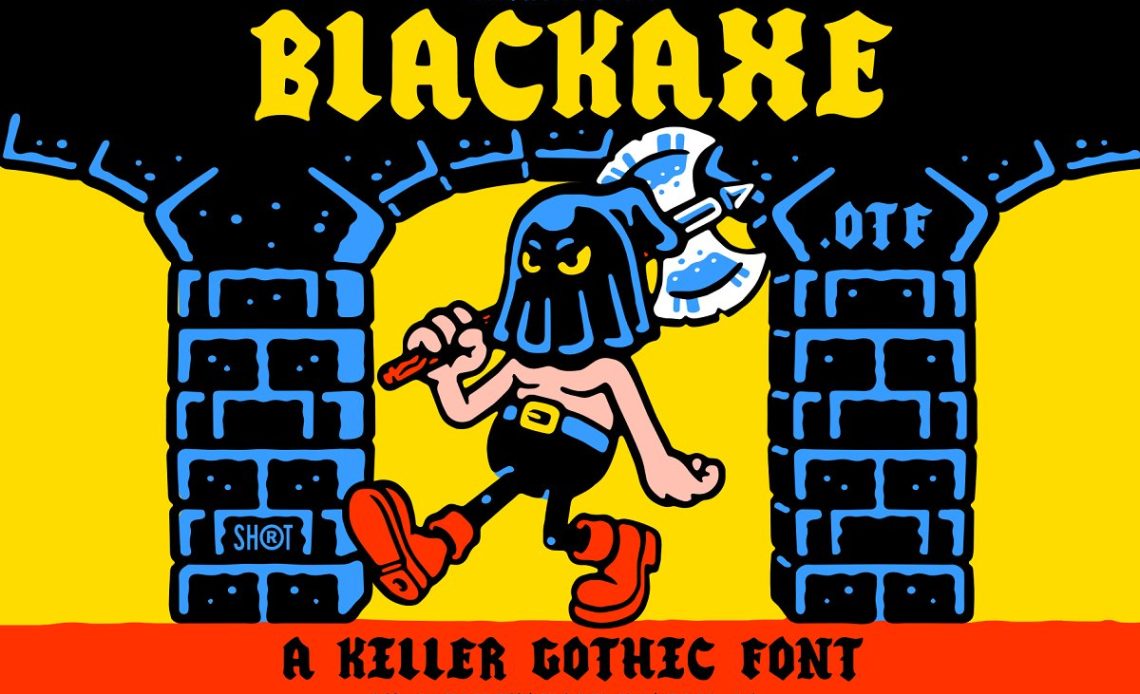
Introducing BLACKAXE FONT: The Ultimate Typeface for Killer Designs!
Are you tired of using the same old boring fonts that fail to make an impact? Look no further! BLACKAXE FONT is here to revolutionize your designs and take them to the next level. Created by the exceptionally talented Davy le Chevance, this cool blackletter font with a hand-drawn feel will captivate your audience and leave a lasting impression.
Unleash your creativity with BLACKAXE FONT and witness your designs come to life like never before. With its unique and edgy style, this font exudes a sense of power and sophistication that is perfect for a wide range of projects. Whether you're designing a logo, crafting a poster, or creating a website, BLACKAXE FONT will effortlessly elevate your work and make it stand out from the crowd.
But what sets BLACKAXE FONT apart from other fonts out there? It's all about the details! Every stroke and curve of this font has been meticulously crafted to perfection, ensuring a flawless and polished end result. The hand-drawn feel adds a touch of authenticity and personality, making your designs truly one-of-a-kind.
BLACKAXE FONT isn't just visually stunning; it also offers exceptional versatility. From gothic-inspired projects to modern designs, this font seamlessly adapts to any style or theme. Its versatility allows you to experiment and explore various creative possibilities, giving you the freedom to bring your wildest ideas to life.
Don't settle for ordinary fonts that fail to make an impact. With BLACKAXE FONT, you have the power to create killer designs that leave a lasting impression. Step into the world of creativity and let your imagination soar with this captivating blackletter font.